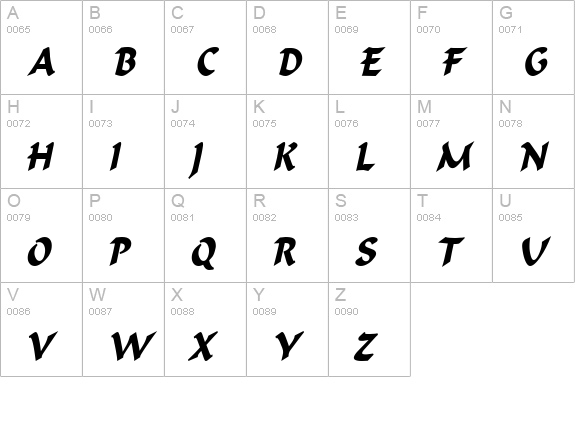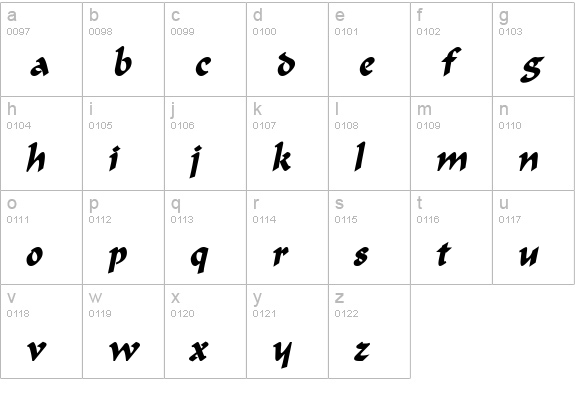
Flat Brush Condensed BoldItalic Font Details
Flat Brush Condensed BoldItalic is a distinctive, condensed-width variant in the Flat typeface family \xE2\x80\x94 well suited to design and typography projects.
The Flat Brush Condensed BoldItalic font exudes a bold and dynamic style, making it perfect for eye-catching headlines and attention-grabbing designs. Its condensed form adds a modern touch while the bold italic weight commands authority and sophistication. This versatile typeface strikes the perfect balance between elegance and impact, making it an ideal choice for projects that require a strong visual presence. Whether used in digital or print media, the Flat Brush Condensed BoldItalic font is sure to make a lasting impression. Best of all, this font is available for free download at FontsMarket.com. Take advantage of this opportunity to enhance your design projects with the striking aesthetics of Flat Brush Condensed BoldItalic. Download now and unleash your creativity with this remarkable font!